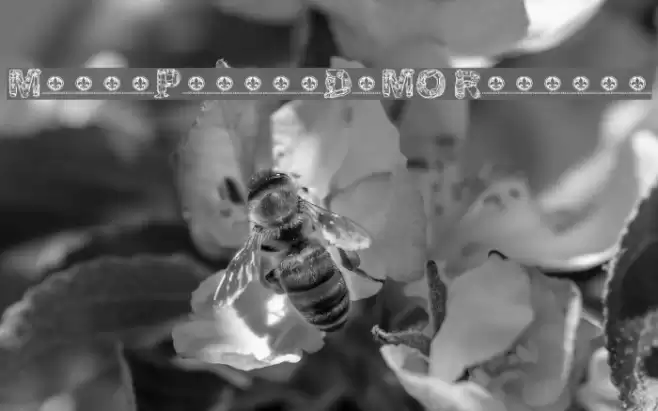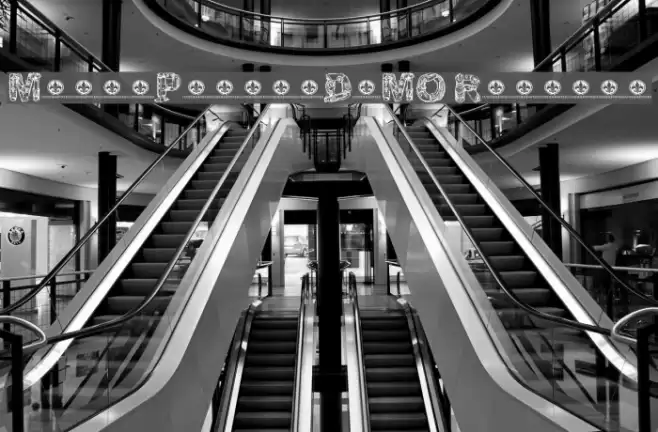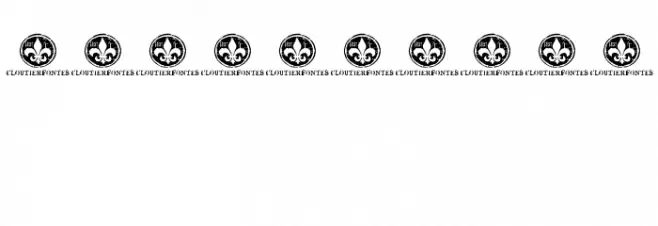
MotorPiecesDEMO Regular Font
This font features a unique and intricate design, incorporating elements reminiscent of mechanical parts and industrial motifs. Each letter is crafted with detailed components, giving it a three-dimensional and textured appearance. The uppercase letters are bold and striking, while the lowercase letters maintain the same mechanical theme. The numbers and special characters are similarly styled, ensuring consistency throughout the font. This design is highly decorative, making it stand out in any application.
A decorative font with intricate mechanical and industrial design elements from Uncategorized fonts.
- Proposed Projects: Ideal for automotive-themed posters, industrial design projects, branding for mechanical or engineering companies, and creative displays.
- Use Case: Logos, Posters, Branding